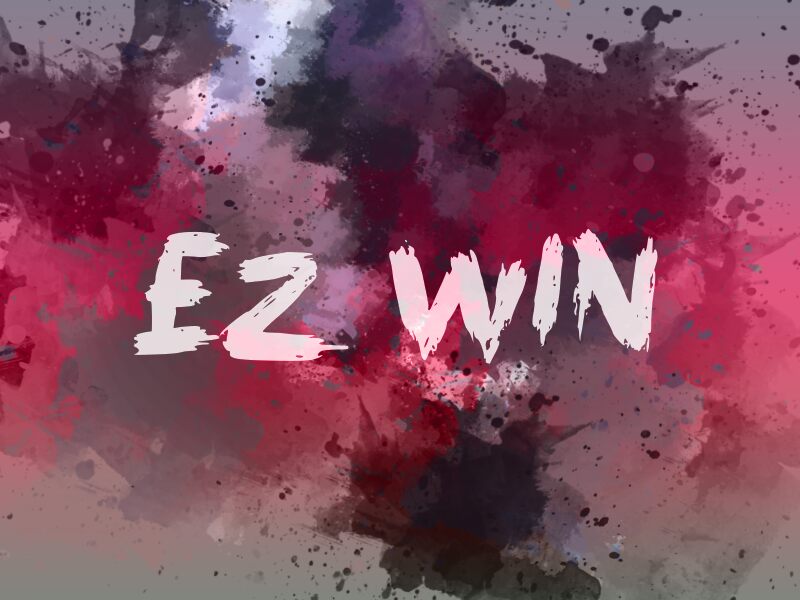
eEZ WIN
Ez Win, a captivating brush font designed by wep, exudes an edgy yet artistic vibe with its trash style. Its extra-bold weight adds a bold statement to any project, making it perfect for rebellious branding campaigns that demand attention. Whether you're designing album covers for punk rock bands, creating streetwear logos that scream attitude, or crafting eye-catching event posters for underground art exhibitions, Ez Win's unique brush strokes and trashy aesthetics will effortlessly inject urban flair into your designs. With this font, triumph over the ordinary and embrace the extraordinary!